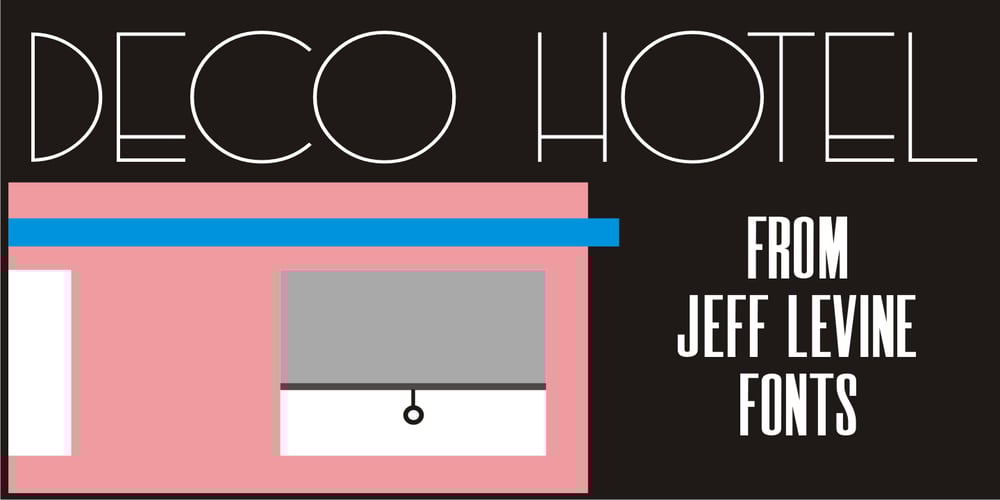
Deco Hotel JNL Font Family was designed by Jeff Levine and published by Jeff Levine. Deco Hotel JNL contains 1 styles and family package options. Hand lettering on the Art Deco-era sheet music for a song entitled “Rosemary” was the model for this delicate monoline design called Deco Hotel JNL.